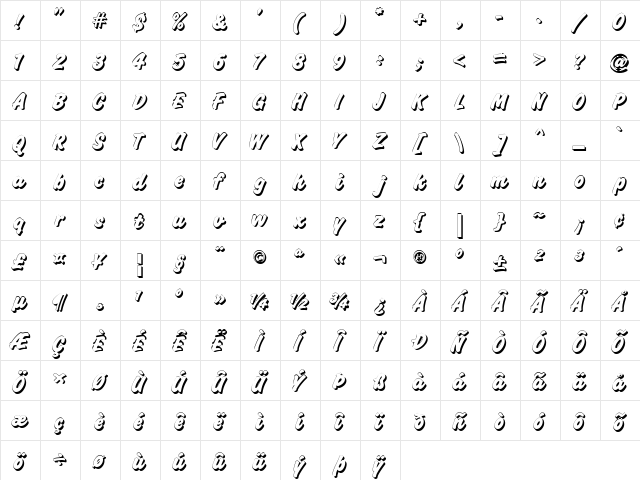
Challenge Shadow Regular
Design Context for Challenge Shadow Typeface
Challenge Shadow is built around its visual character rather than neutral utility — its distinctive forms are designed to make an impression at display sizes.
Font Pairing: Pair with a clean neutral sans-serif for body copy to let Challenge Shadow's character lead without overwhelming the composition.
Pro Tip: Treat Challenge Shadow as the centrepiece of your typographic hierarchy. One strong heading set in a decorative face can carry an entire layout.